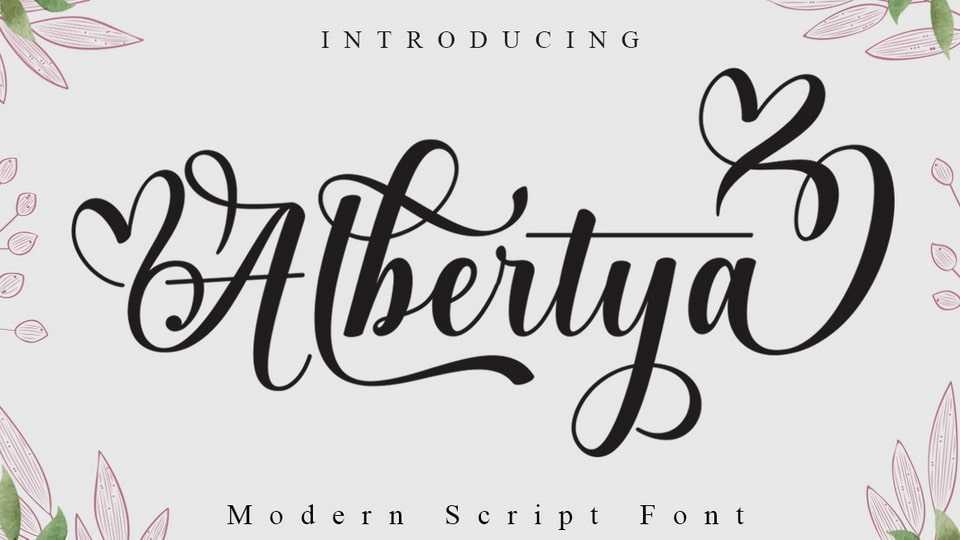
Download Albertya font, a modern calligraphy typeface, casual and pretty with a stroke. Can be used for various purposes, such as logos, product packaging, wedding invitations and so on.